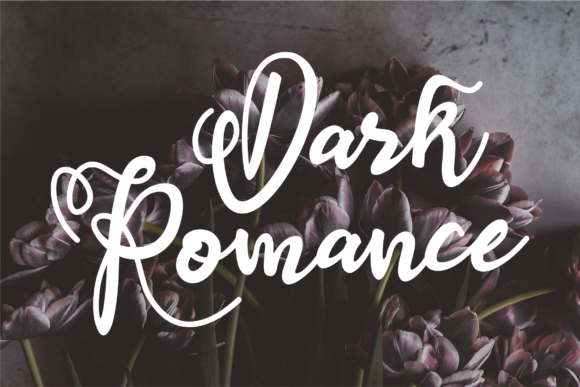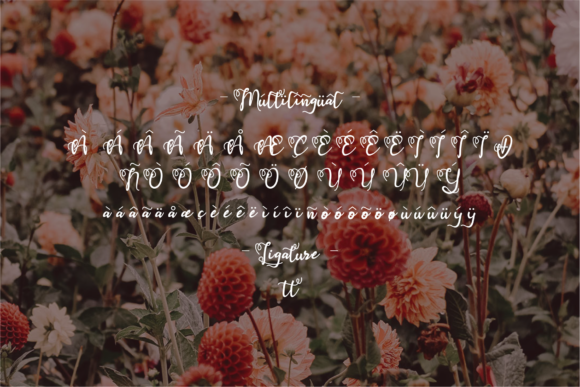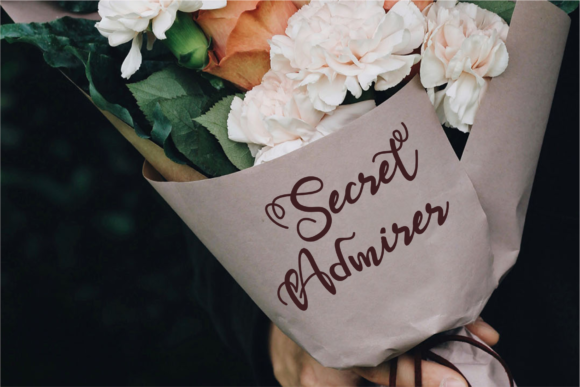
About Berthany Font
Berthany is a delightful and joyful handwritten font that exudes sweetness and happiness. With its versatile style, this font becomes a valuable asset for a wide range of creative projects, adding a touch of charm and cheerfulness to each design.
The font’s smooth and flowing lines evoke a sense of elegance and playfulness, creating a perfect blend of sophistication and joy. Berthany’s carefully crafted letters make it a captivating choice for wedding invitations, setting the tone for a romantic and unforgettable celebration. Its whimsical nature adds a touch of magic, making every invitation feel like a special and cherished keepsake.
Berthany also shines in stationary art, allowing you to create beautiful and personalized pieces that brighten up any space. From art prints to greeting cards, the font’s sweet style injects warmth and happiness into your designs, making them stand out and leave a lasting impression on recipients.
In the digital world, Berthany brings a burst of joy to social media posts and eye-catching graphics. Its playful yet refined appearance captures attention, encouraging engagement and interaction with your content. Whether you’re sharing inspirational quotes, announcing special promotions, or simply spreading positivity, Berthany adds an extra dose of charm to your online presence.
Moreover, the font’s versatility extends to branding and logo design. It offers a unique opportunity to infuse your brand identity with a touch of personality and approachability. Whether you’re a small business or a creative entrepreneur, Berthany helps you stand out from the crowd and connect with your target audience on a deeper level.
The cheerful nature of Berthany makes it an excellent choice for children’s projects, such as book covers, educational materials, and illustrations. Its friendly and inviting style captivates young hearts and fosters a love for creativity and learning.
Berthany is a font that sparks joy and spreads positivity, making it an ideal choice for various creative ventures. It embodies the essence of happiness and brings a sense of celebration to every application. Its versatility ensures that you can use it in a wide array of projects, allowing your imagination to soar and your designs to come to life with a touch of sweetness.
In conclusion, Berthany is a sweet and joyful handwritten font that brings happiness and charm to your creative endeavors. Its versatile style allows you to use it in wedding invitations, stationary art, social media posts, branding, children’s projects, and more. Fall in love with Berthany’s cheerful personality and let it infuse your designs with an irresistible sense of joy and wonder.